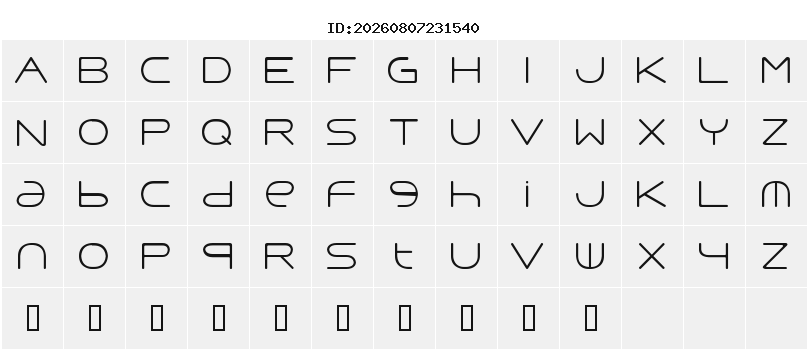
Punavuori 00150 Preview
• Font Name: Punavuori 00150
• Full Font Name: Punavuori 00150
About Punavuori 00150.ttf
Punavuori 00150.ttf is a modern, elegant sans-serif font designed for ultimate readability and visual harmony. Perfect for branding, headlines, web design, and print materials.